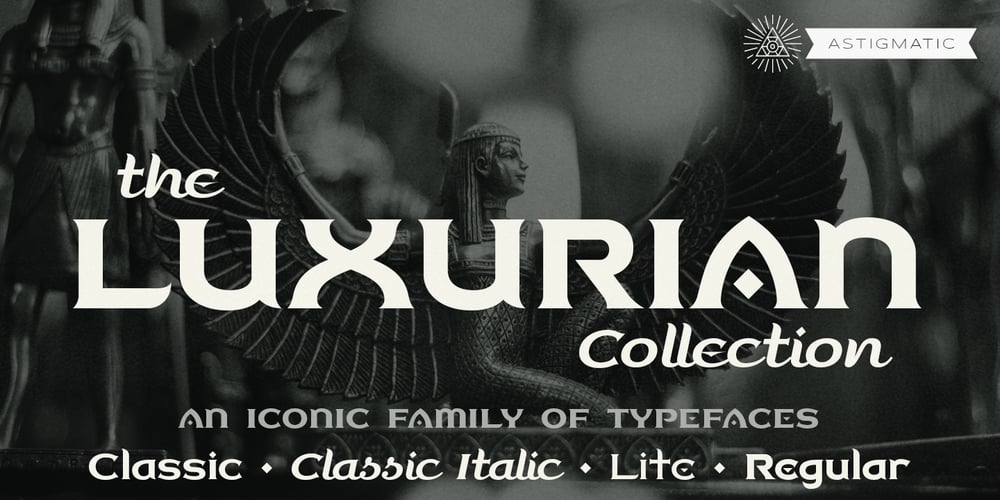
Luxurian AOE
Luxurian AOE font
Luxurian AOE Font Family was designed by Brian J. Bonislawsky and published by Astigmatic. Luxurian AOE contains 11 styles and family package options. Inspired by the logo of the Luxor Hotel & Casino in Las Vegas, the Luxurian Lucky 777 Font Collection takes inspiration to a whole new level, creating 7 typestyles which expand and compliment the brand. Luxurian Pro allows easy access to a bevy of alternate features such as standard and smallcap glyphs, standard, proportional, tabular, and oldstyle figures, limitless fractions, and several style sets. Why gamble when you can hit it big in your designs with this set available for a jackpot of a price!